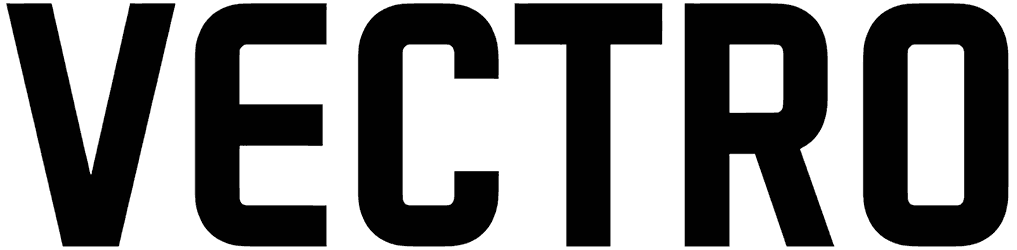
Vectro Font
Let’s take a look at Vectro, a victorious, naive, and impressive font. This sans serif font consists of two series of capitals, some of which have sharp edges, and another one is soft, while it doesn’t support lowercase. Set Vectro on your following design, such as banners, covers, logotypes, or anything you want to seem strong.